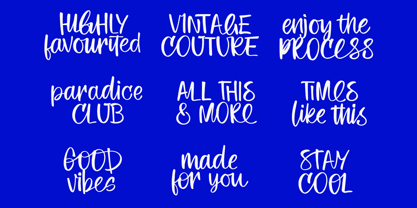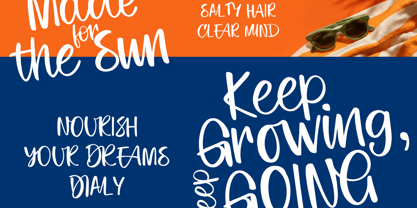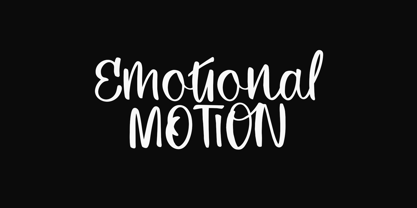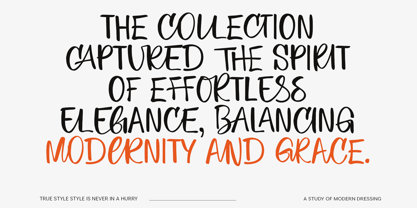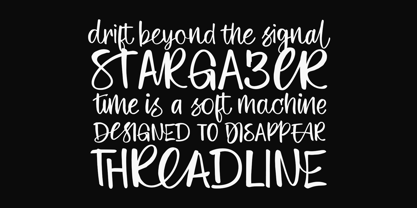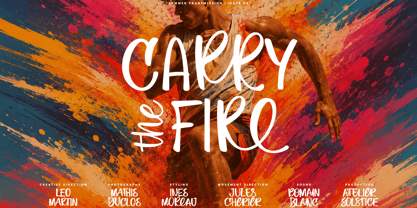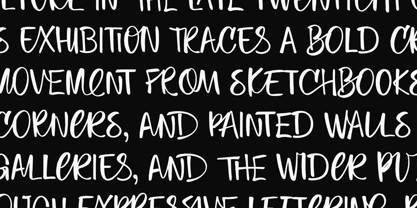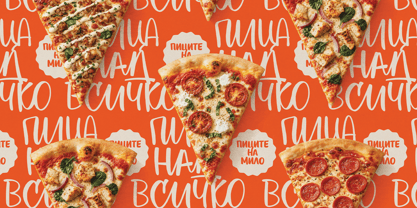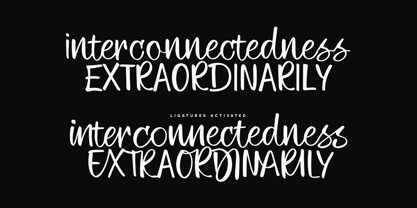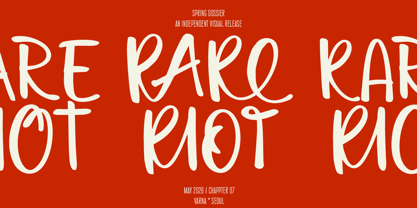
Emotional Motion
The Emotional Motion Font Family was designed by Vladimir Fedotov, Plamen Petrov and published by VP Creative Shop. Emotional Motion contains 1 styles. More about this family
Emotional Motion is a highly expressive handwriting family built around variation, rhythm.
Rather than repeating the same forms throughout a word, the typeface uses more than 1,300 individually drawn ligatures to create constantly changing letter combinations. The result is handwriting that feels spontaneous, irregular and noticeably less mechanical than conventional digital scripts.
The character set contains 2,300+ glyphs, including four stylistic sets, numerous alternative letterforms and ligatures developed for both Latin and Cyrillic writing systems.
Each stylistic set changes the character of the handwriting while preserving its underlying identity, allowing designers to move between cleaner compositions and more energetic, unpredictable lettering.
Emotional Motion includes Extended Latin and extensive Cyrillic support, making it particularly useful for multilingual branding, publishing and international creative work.
Its large character inventory gives the family enough flexibility for both short display typography and longer handwritten passages.
Emotional Motion is particularly effective in editorial design, visual identities, packaging, publishing, posters, album artwork and contemporary display typography where natural variation is an important part of the concept.
A handwriting family designed not around one perfect letterform, but around the subtle differences that make handwriting feel alive.